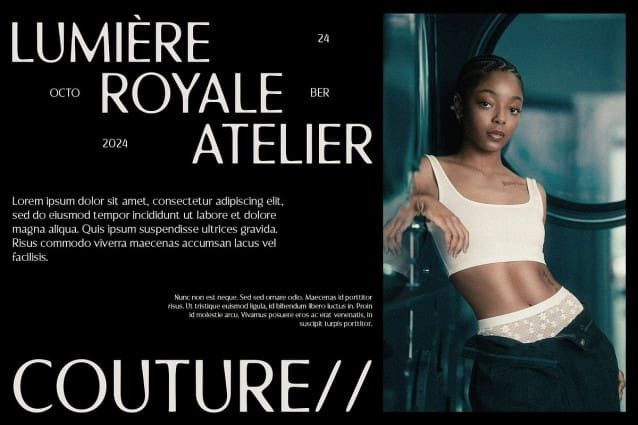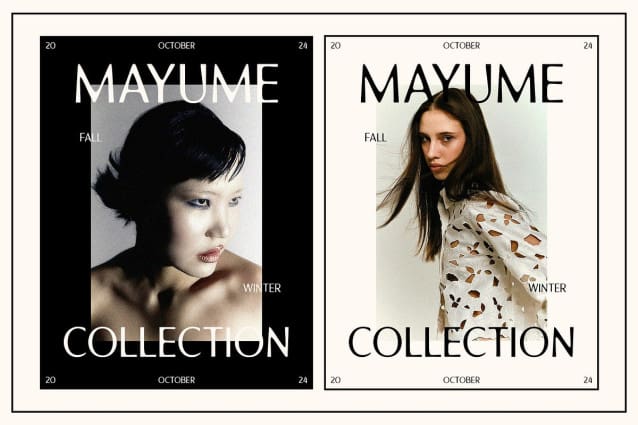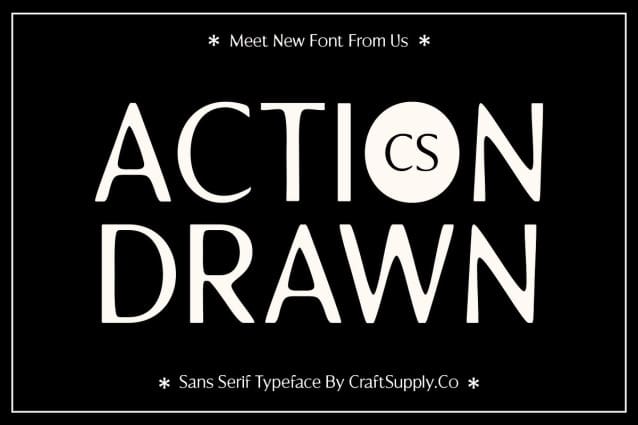
CS Action Drawn Font
CS Action Drawn Font is a modern sans serif font that features a geometric and clean design, blending simplicity with a clear structure. This harmonious combination results in a contemporary and easily readable appearance, making it an excellent choice for projects requiring clarity and sophistication. The font’s balanced proportions enhance its legibility across various applications, ensuring effective communication in design.
Artistic Drawn Effect for Unique Character The applied drawn effect introduces an artistic, handmade touch to this drawn font, imbuing each letter with warmth and individuality. This unique feature adds character to the font, making it stand out in a sea of digital typography. The handmade quality resonates with audiences, creating a personal connection that elevates the overall design experience.
Versatile for Diverse Applications CS Action Drawn’s geometric design makes it highly suitable for a wide range of applications, from branding to graphic design. Whether used in corporate identity, marketing materials, or editorial layouts, this font strikes the perfect balance between aesthetics and functionality. Its modern style is ideal for projects that aim to convey innovation, professionalism, and creativity.